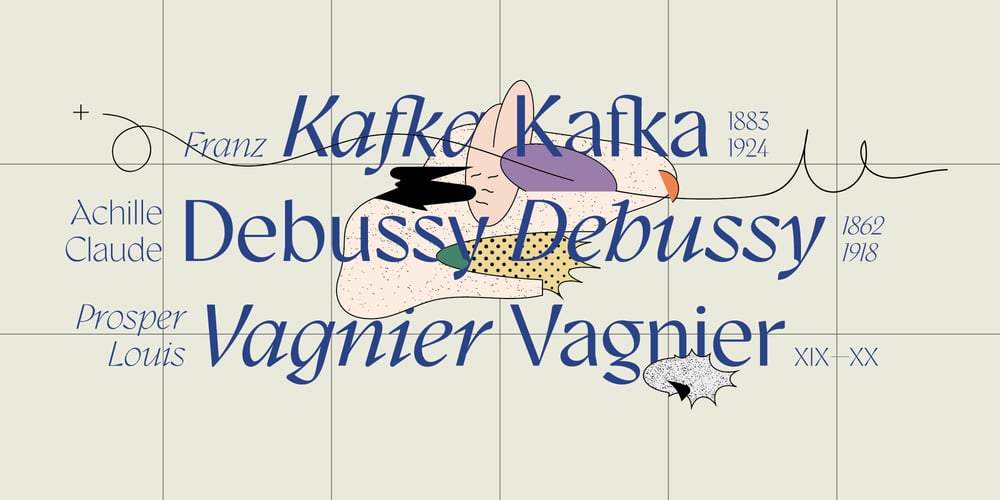
Gyst
Gyst font
Gyst Font Family was designed by Roland Hörmann and published by phospho. Gyst contains 8 styles and family package options. Gyst is a neo-humanist sans-serif typeface that artfully blends the principles of Grotesque and Antiqua. With its classic uprights and the serifs in its true italics, Gyst spans the arc from a modern humanistic sans serif to a captivating calligraphic serif.Contrasting strokes and luscious, on the other hand razor-edged terminals reflect a sense of grace, thriving at the intersection of geometric precision and flourishing sophistication.Made for body text as well a s display use. In any situation, you will find the autonomous cursive posture to be a perfect playmate for the upright.Gyst comes in four upright and italic weights, all equipped with a whole lot Alternates and Ligatures.